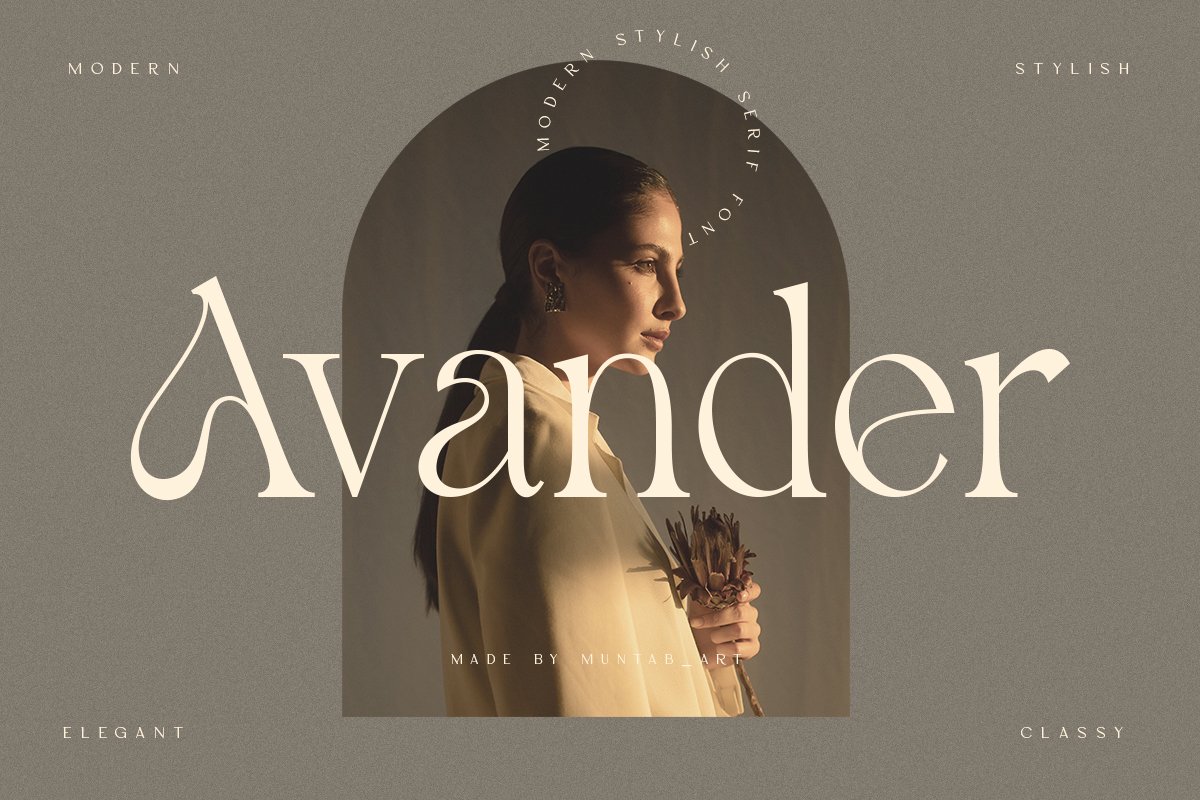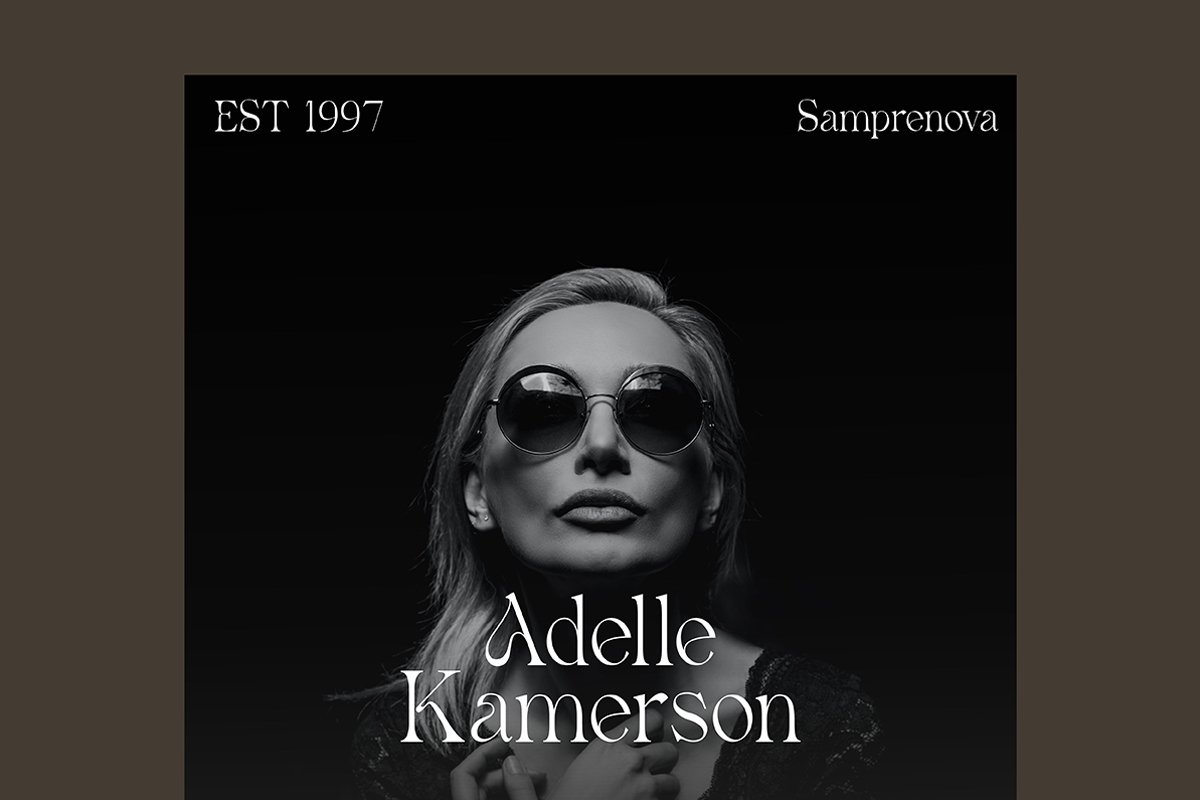
About the Avander | Modern Stylish
Avander fonts includes uppercase letters, lowercase, numerals, a large range of punctuation, Serif font with modern stylish style, Created for poster, web design, branding, illustrations, badges and some other works, Avander OTFAvander TTFPlease contact us if you have any question, we are happy to help you!Thank you!